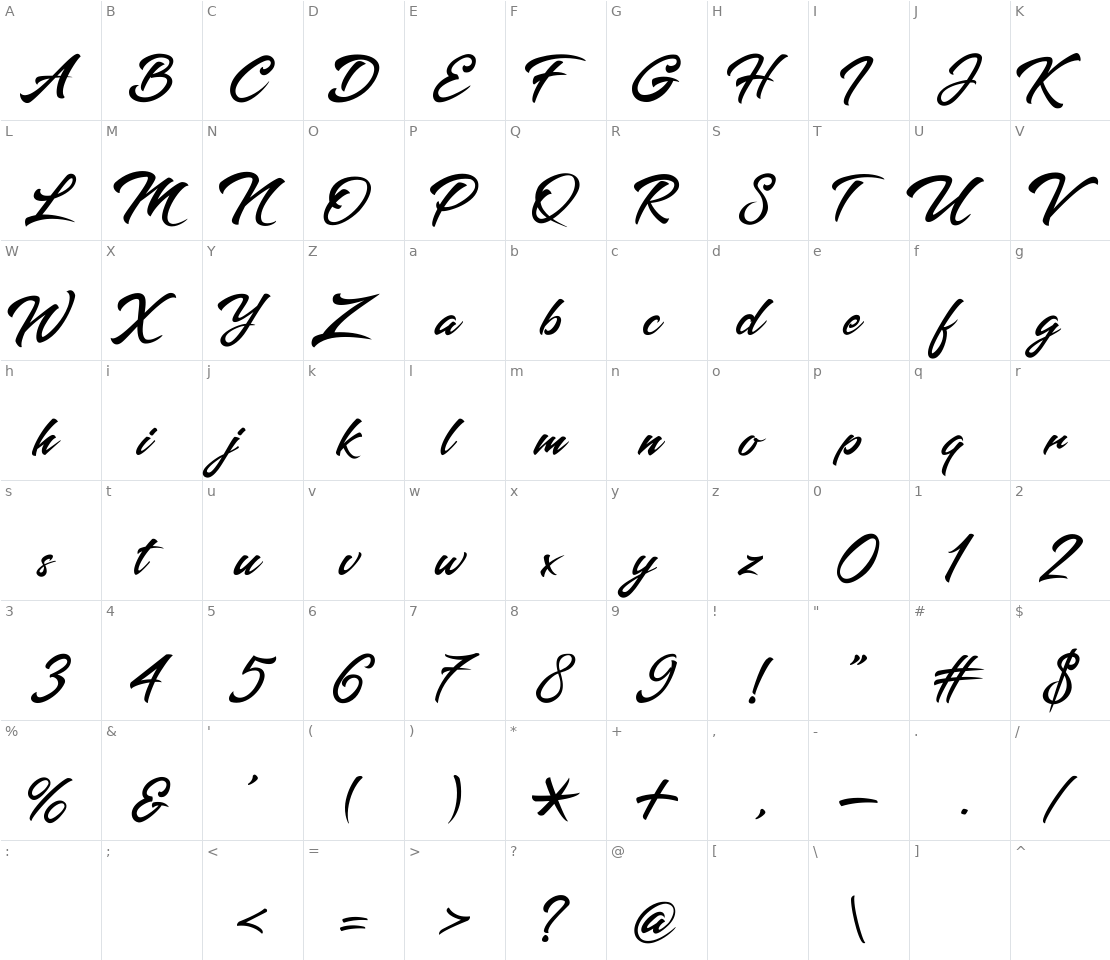
Batoshi
Batoshi is a bold, forward-slanting brush face from hustletter that moves with real urgency across the page. The strokes feel fast and expressive, with visible ink dynamics that give each letter a raw, physical energy. Built for posters, headlines, and branding where you want type that feels like it was painted in one confident sweep.